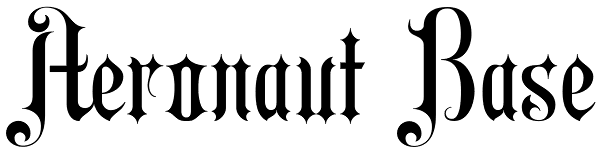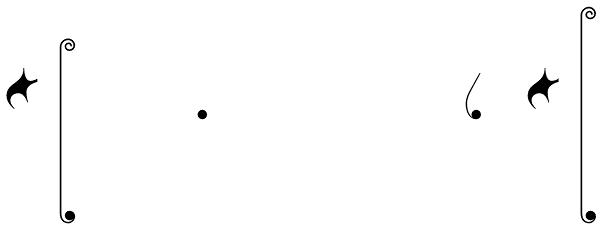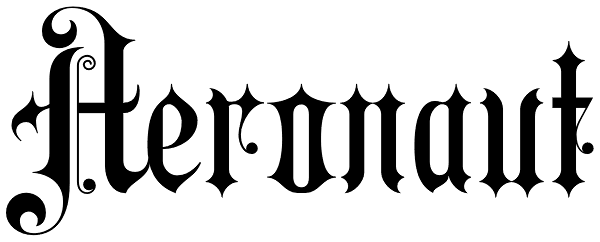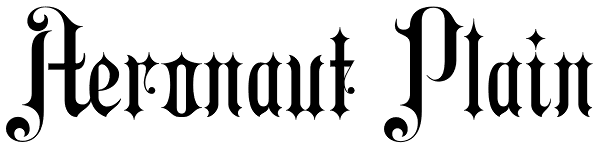
Aeronaut
A Neogothic typeface that radiates trendy ease and allows bicolor compositions. Aeronaut has been inspired by Kirchengotische Schrift, a font that can be found in a German font book from 1879 entitled Vorlegeblätter für Firmenschreiber. As its name...
Aeronaut Base
Aeronaut Balloon
Aeronaut
Aeronaut Parachute
Aeronaut Plain